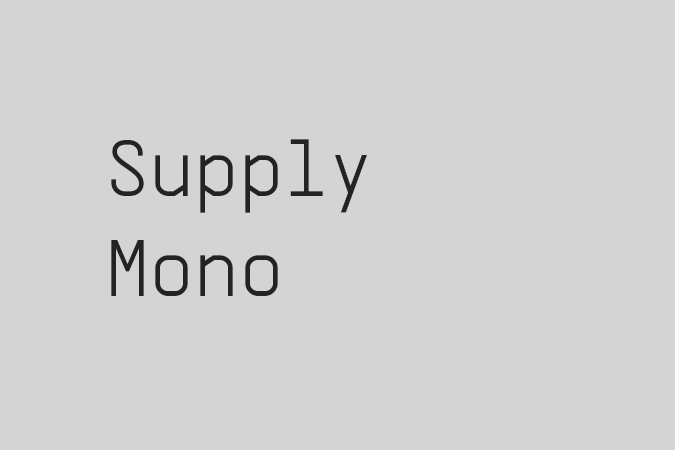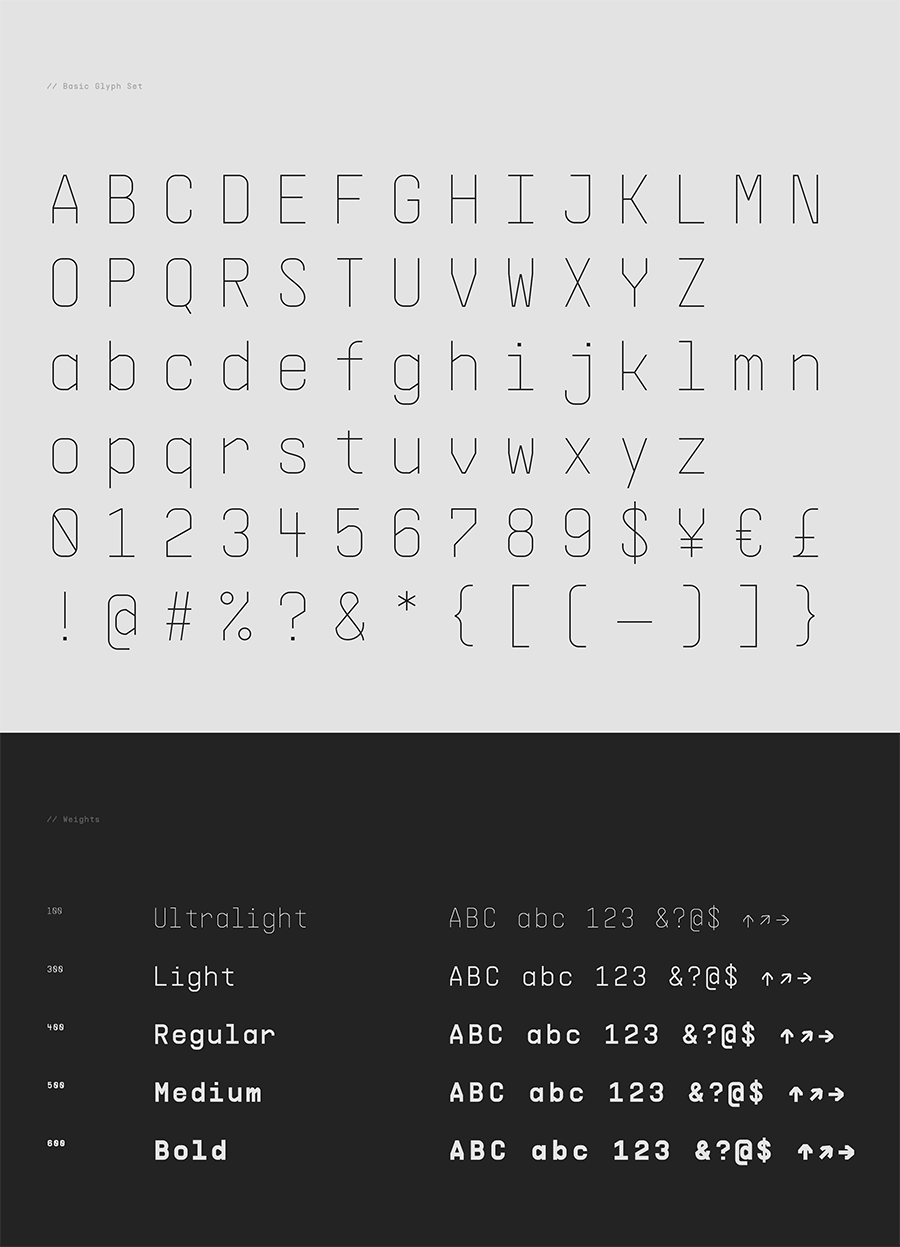
Supply Mono is a versatile monospaced font that was inspired by industrial designs and architecture. It features precise curves and sharp edges, making this font a multi purpose font that can be used on many applications and medium. It comes with 5 weights, and you can download it for free for testing.
- Designer: Mathieu Desjardins
- Styles: 5
- Category: Monospace